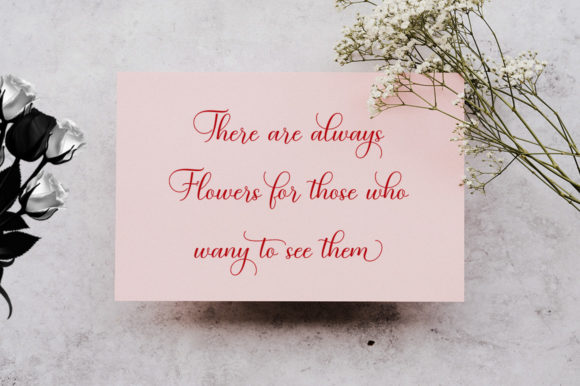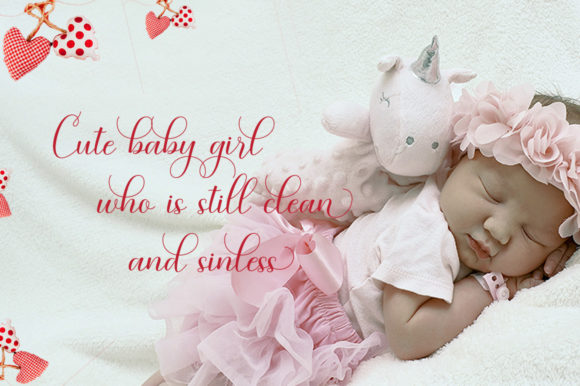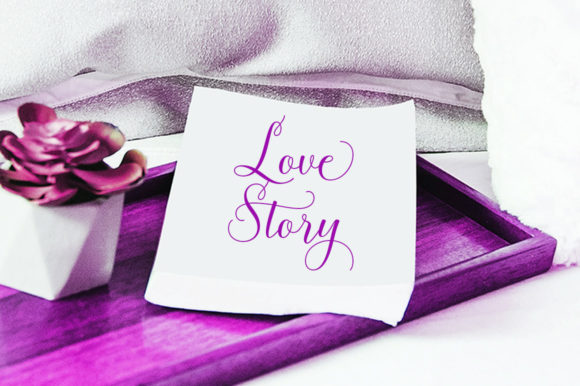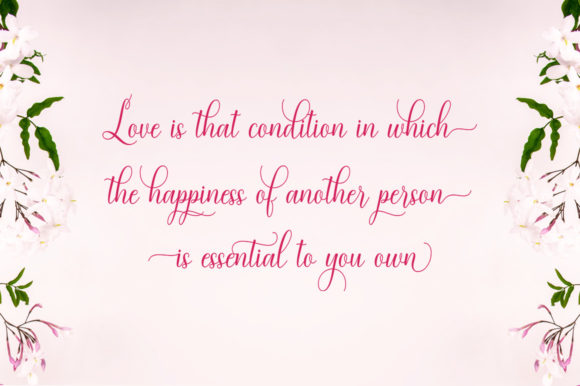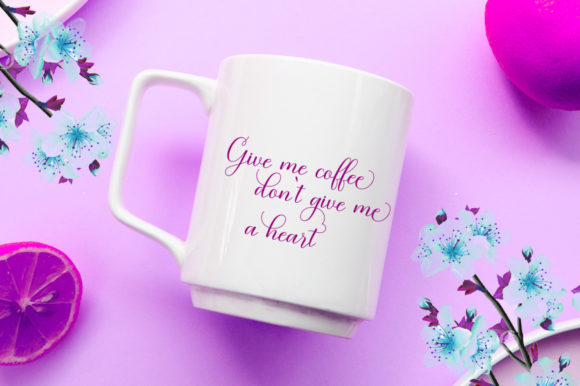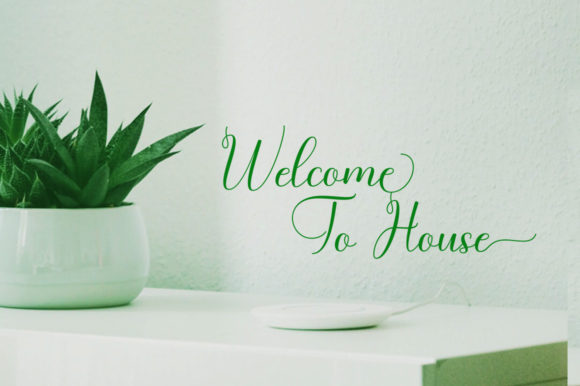
Baby Angelonia Font: Elevate Your Designs with Modern Calligraphy
In the world of typography, fonts play a crucial role in conveying the tone and personality of a design. For designers and crafters looking for a modern, yet classy font, Baby Angelonia is an excellent choice. This beautiful, handwritten font is perfect for adding a touch of elegance and sophistication to any project.
What is Baby Angelonia Font?
Baby Angelonia is a modern handwritten font that combines the best of calligraphic influences with a contemporary twist. Its unique design makes it an ideal choice for a wide range of projects, from wedding invitations and stationery to branding and advertising materials. The font’s creator has carefully crafted each letter to ensure that it exudes a sense of freshness and modernity, while still maintaining a classy feel.
One of the standout features of Baby Angelonia is its PUA (Private Use Area) encoding. This means that users can access all the glyphs and swashes with ease, giving them greater flexibility and creative control over their designs. With PUA encoding, designers can easily insert special characters, ligatures, and swashes into their text, making it perfect for creating beautiful, one-of-a-kind designs.
Key Features of Baby Angelonia Font
• Modern Handwritten Style: Baby Angelonia boasts a fresh, contemporary look that’s perfect for modern designs.
• Classy Calligraphic Influences: The font’s calligraphic roots give it an air of sophistication and elegance.
• PUA Encoded: Easy access to glyphs, swashes, and special characters for added creative control.
• Highly Versatile: Suitable for a wide range of projects, from digital designs to print materials.
Why Choose Baby Angelonia Font?
For designers and crafters looking to elevate their designs, Baby Angelonia is an excellent choice. Here are just a few reasons why:
• Unique and Eye-Catching: The font’s modern calligraphic style ensures that your designs will stand out from the crowd.
• Easy to Use: With PUA encoding, accessing glyphs and swashes is a breeze, making it easy to create stunning designs.
• High-Quality Design: Each letter has been carefully crafted to ensure a high level of quality and attention to detail.
Using Baby Angelonia Font in Your Designs
Baby Angelonia is incredibly versatile and can be used in a variety of design projects, including:
• Wedding Invitations and Stationery: Add a touch of elegance and sophistication to your wedding designs.
• Branding and Advertising: Create eye-catching logos, brochures, and ad materials that showcase your brand’s personality.
• Digital Designs: Use Baby Angelonia in your digital designs, such as social media graphics, blog headers, and more.
In conclusion, Baby Angelonia is a stunning modern handwritten font that’s perfect for designers and crafters looking to add a touch of elegance and sophistication to their designs. With its PUA encoding, classy calligraphic influences, and highly versatile design, it’s an excellent choice for a wide range of projects. So why not fall in love with Baby Angelonia and bring your projects to the highest levels?